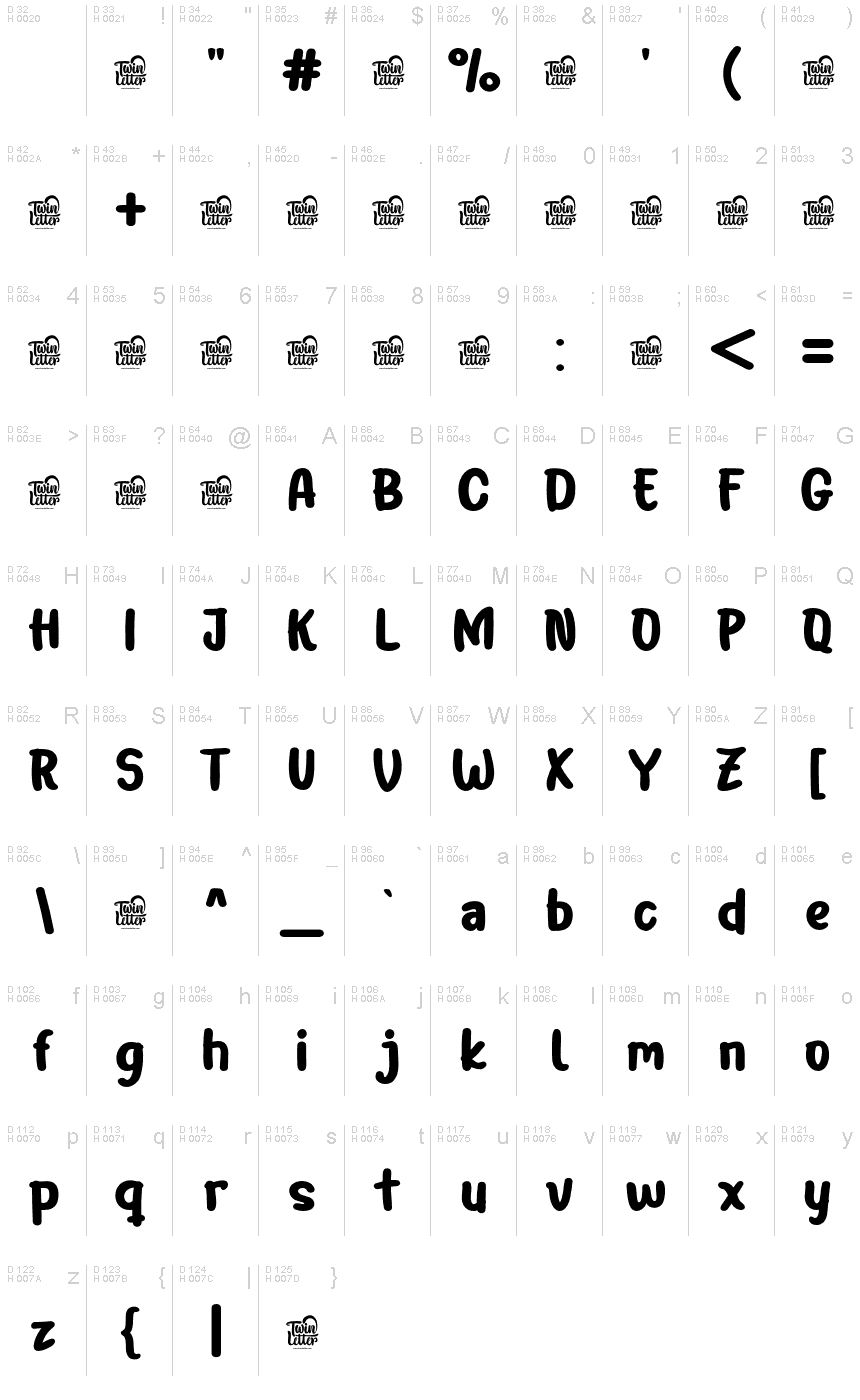
BENAH-Regular
BENAH is a bold, semi-condensed handwritten font from designer twinletter. With its playful and organic style, this font is perfect for creative projects that require a touch of personality. Use it on posters, greeting cards, or social media graphics to add a unique flair to your designs. BENAH's semi-condensed width makes it an ideal choice for headers and titles that need to stand out without taking up too much space. Whether you're working on a branding project or creating something purely for fun, BENAH is sure to make your text pop!